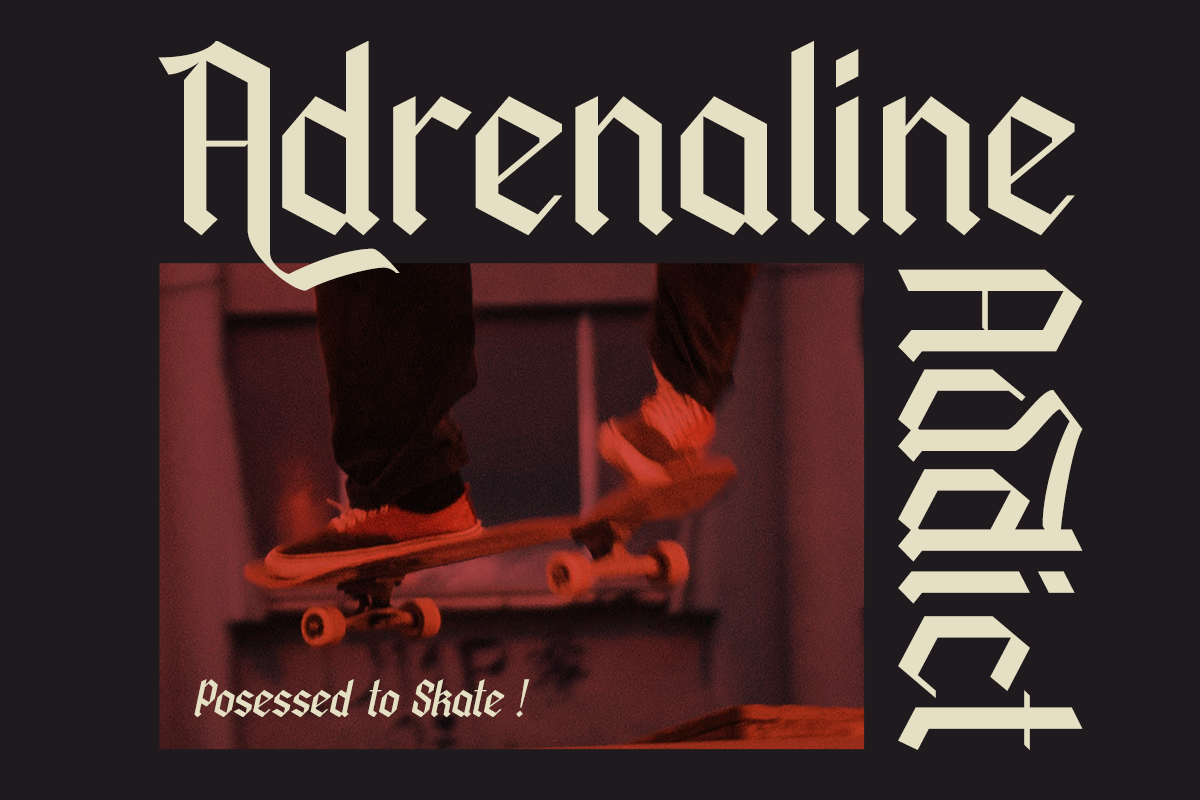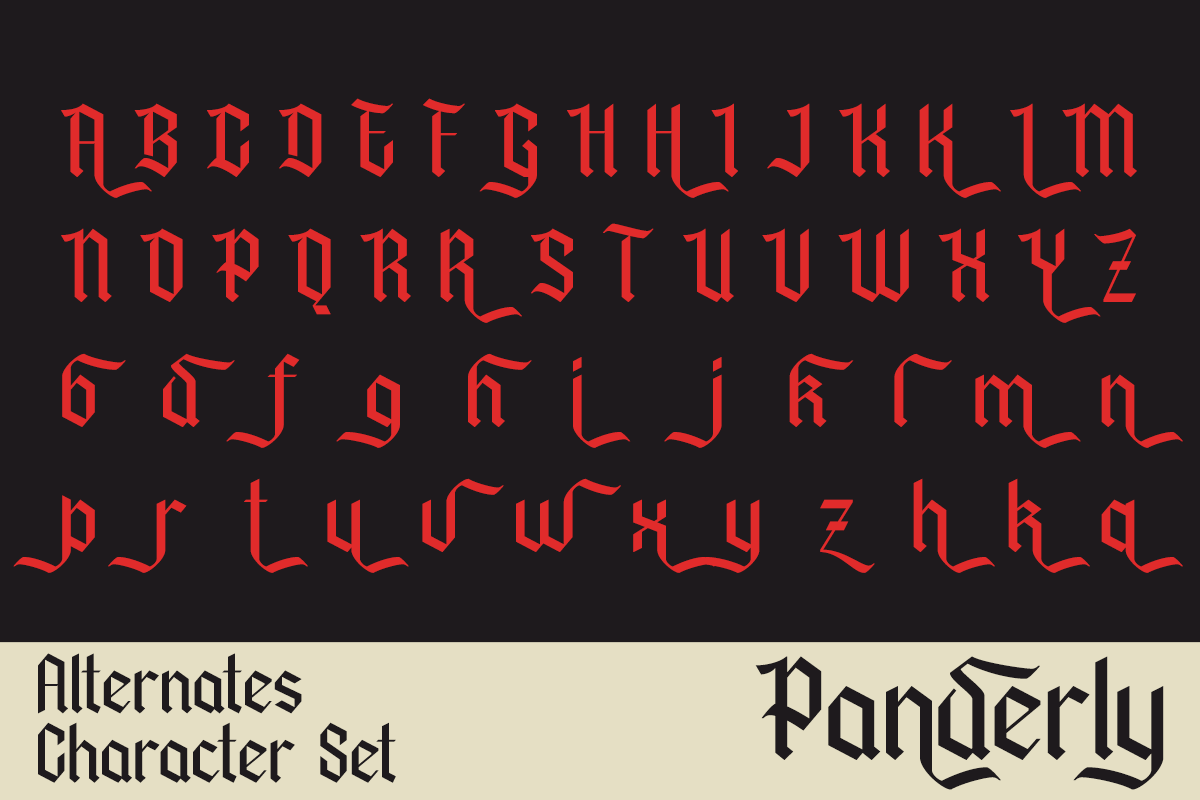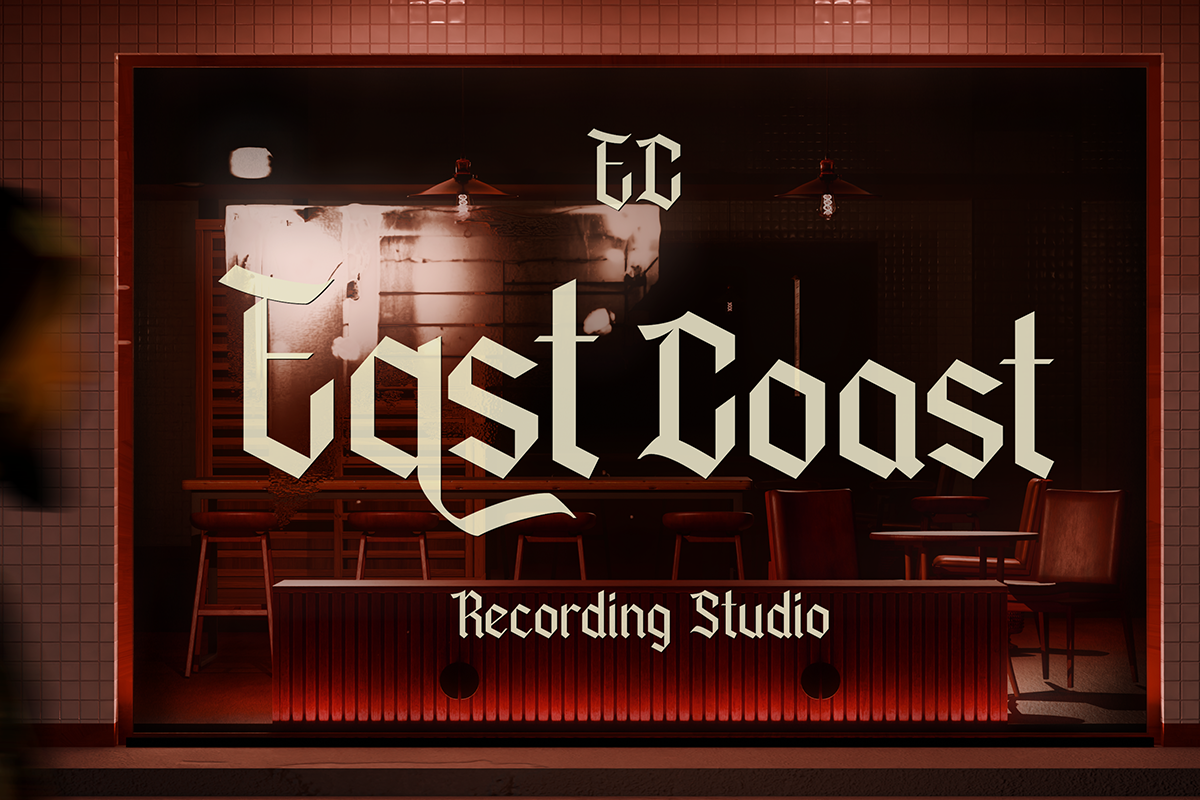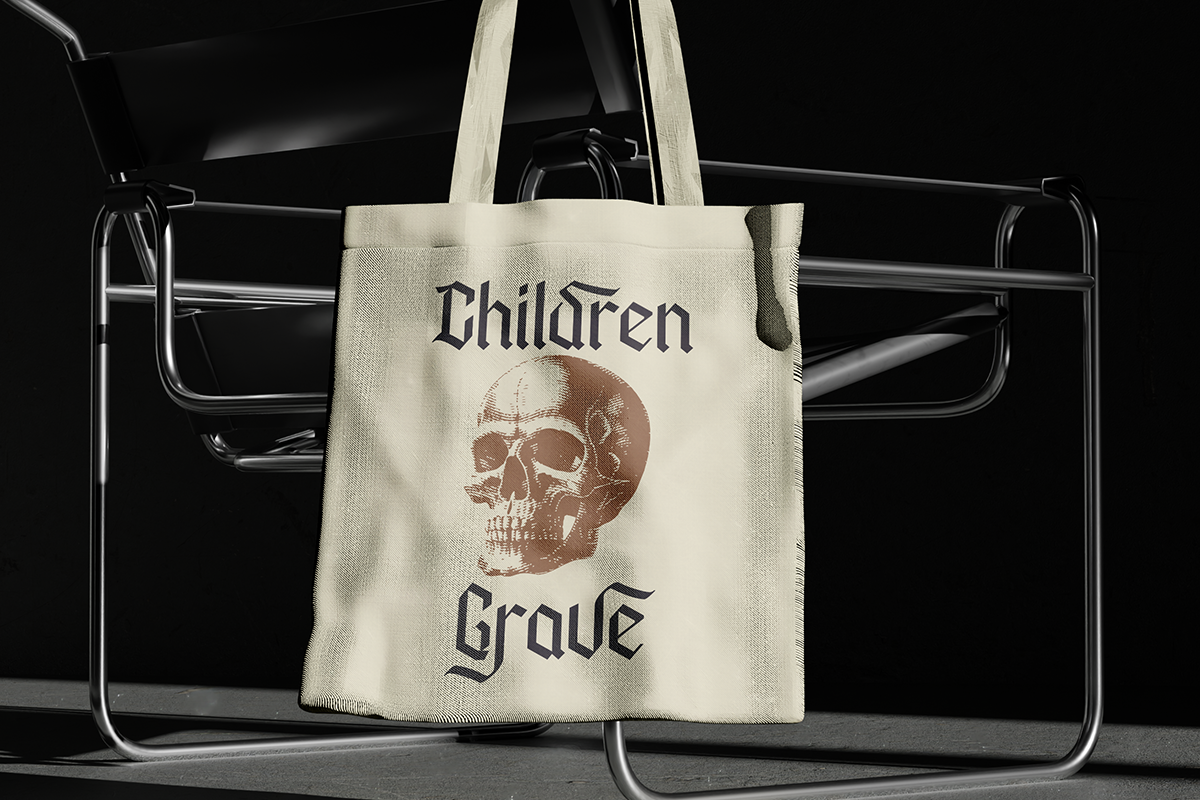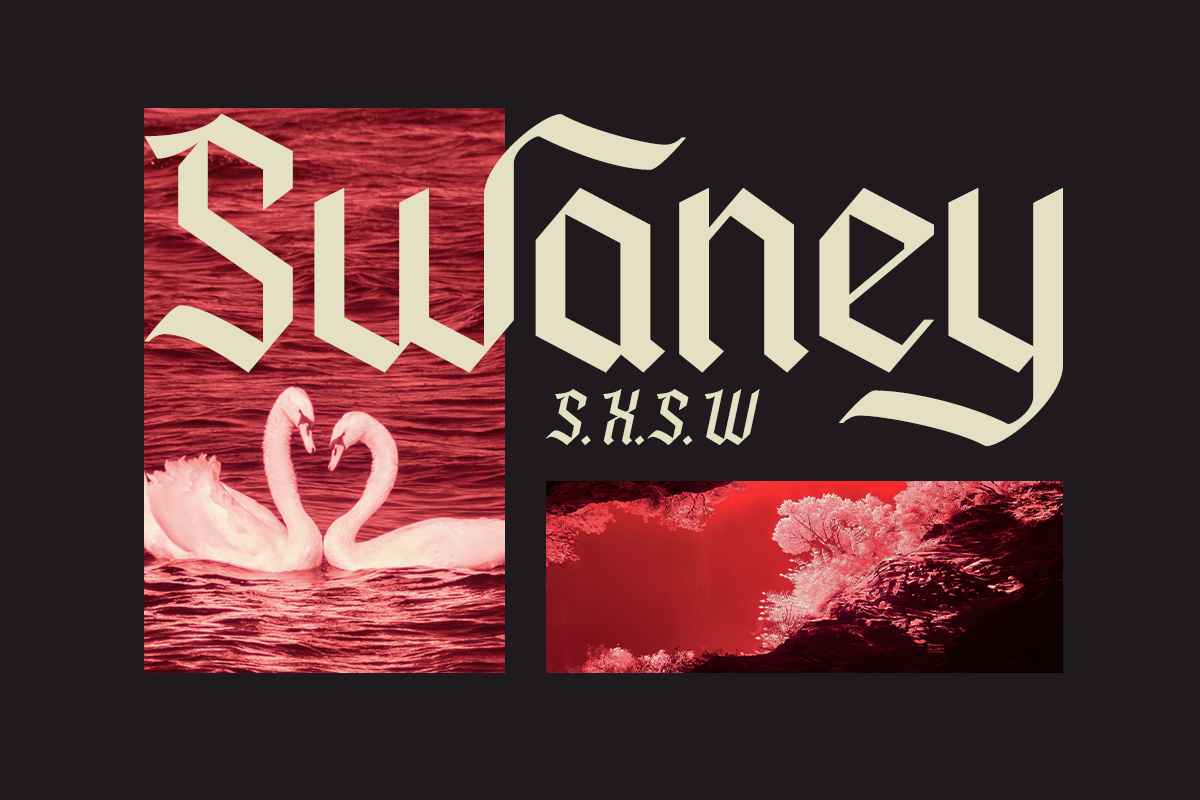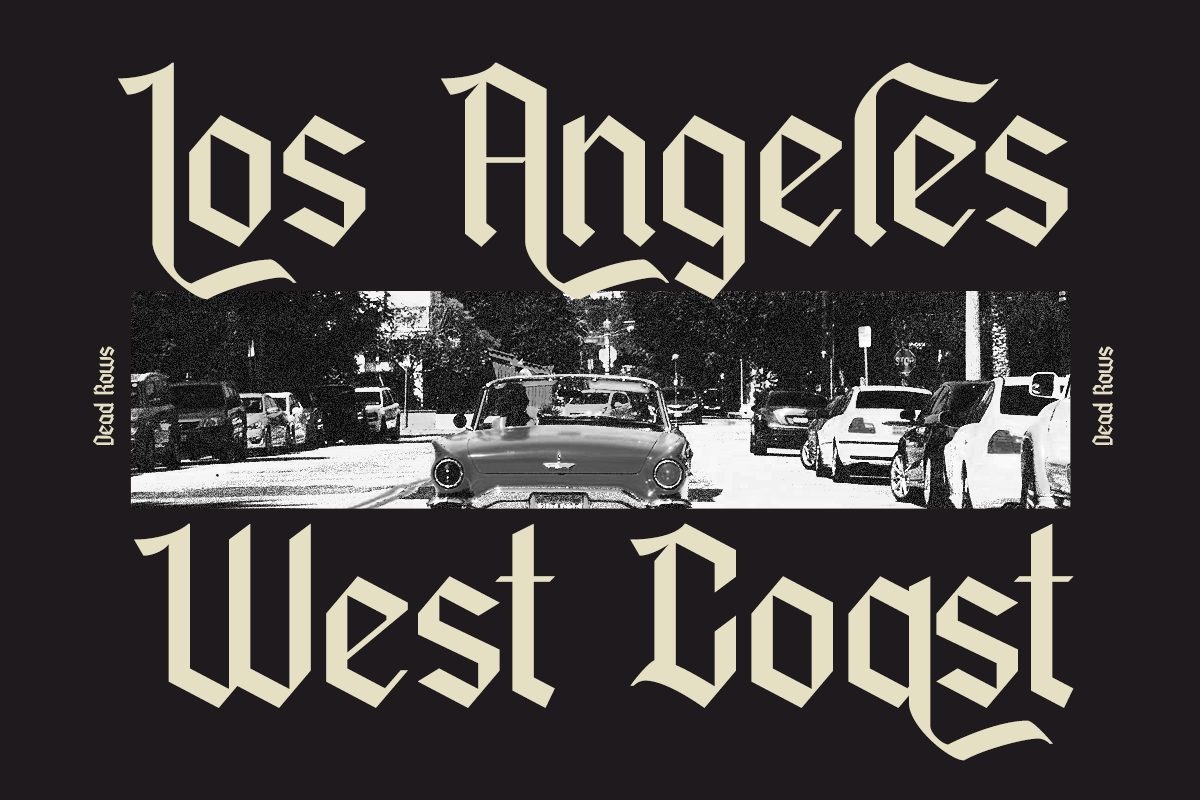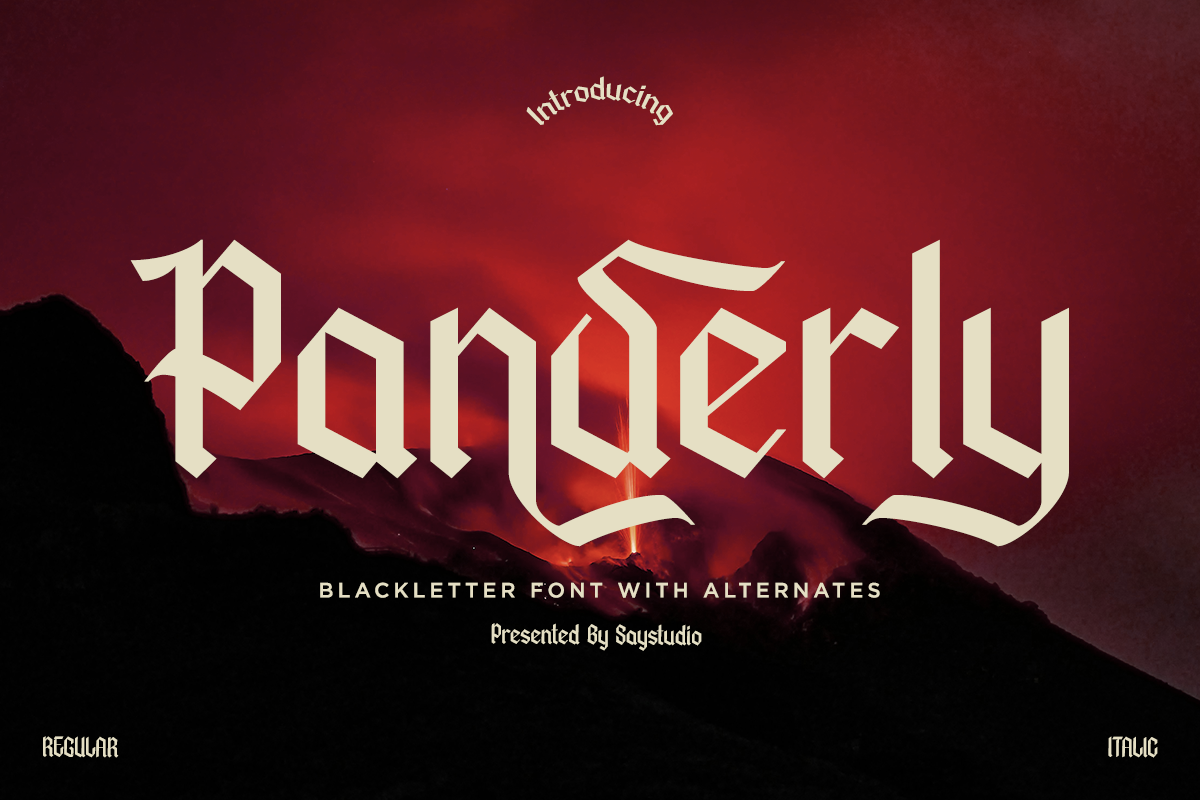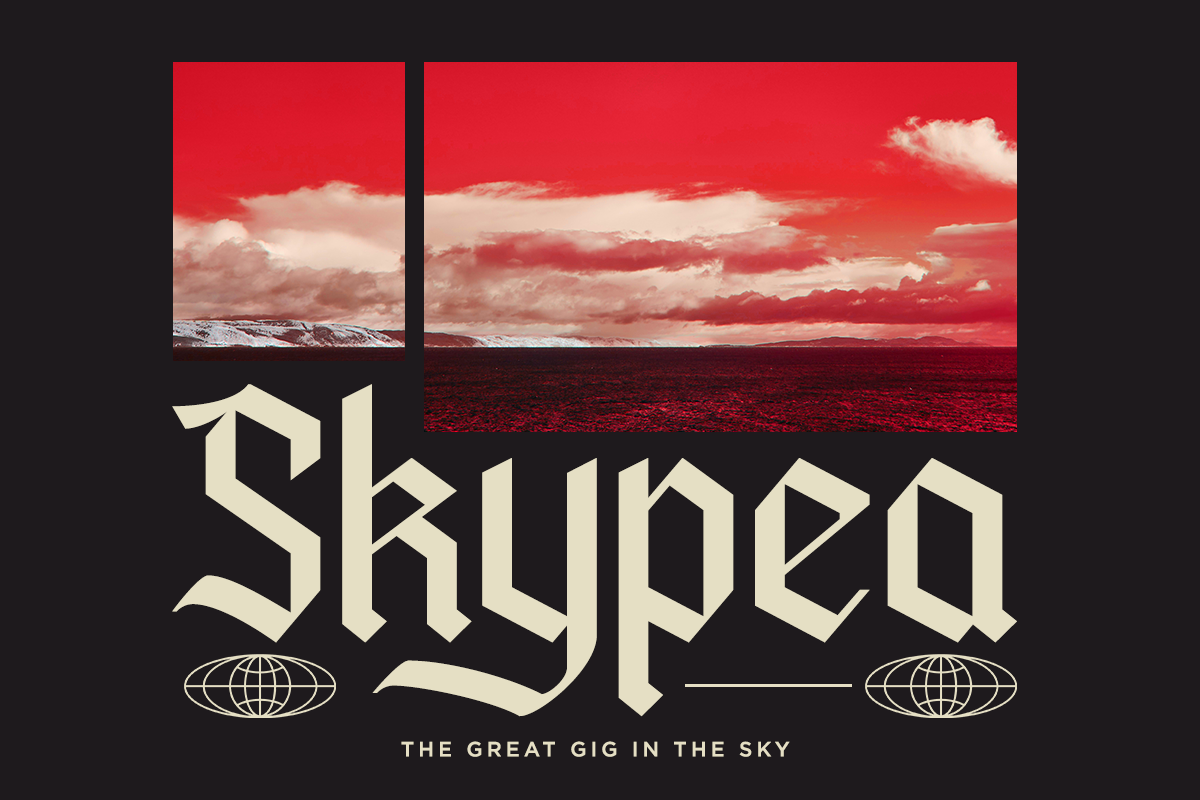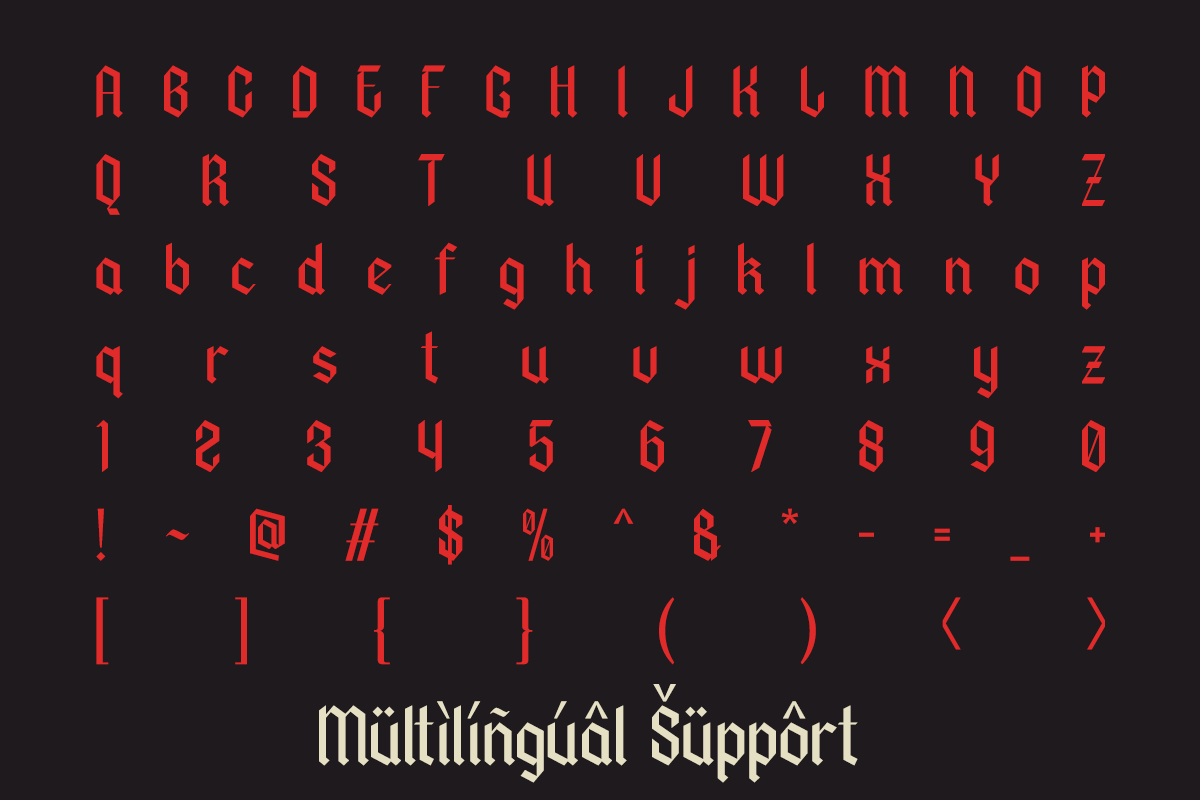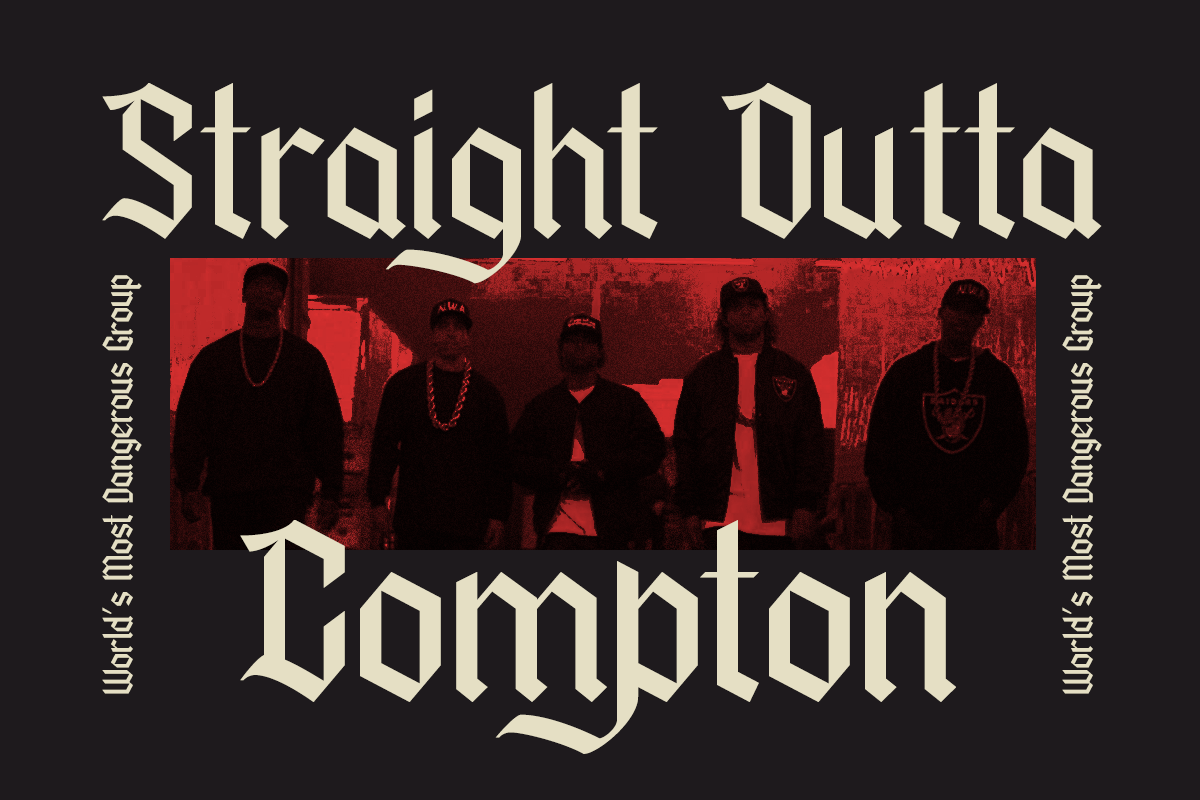
Classic Blackletter Font - Panderly
Introducing Panderly, a bold and modern take on classic blackletter design. With its sharp angles, medieval influence, and contemporary flair, Panderly is crafted to make a strong, striking impression. Perfect for album covers, streetwear branding, or gothic-inspired posters, this font delivers a powerful presence with every letter.
Panderly comes with stylistic alternates to give you creative flexibility, allowing you to mix and match characters for dynamic, custom-looking layouts. From vintage horror aesthetics to edgy editorial titles, Panderly brings a sense of drama and heritage to your work.